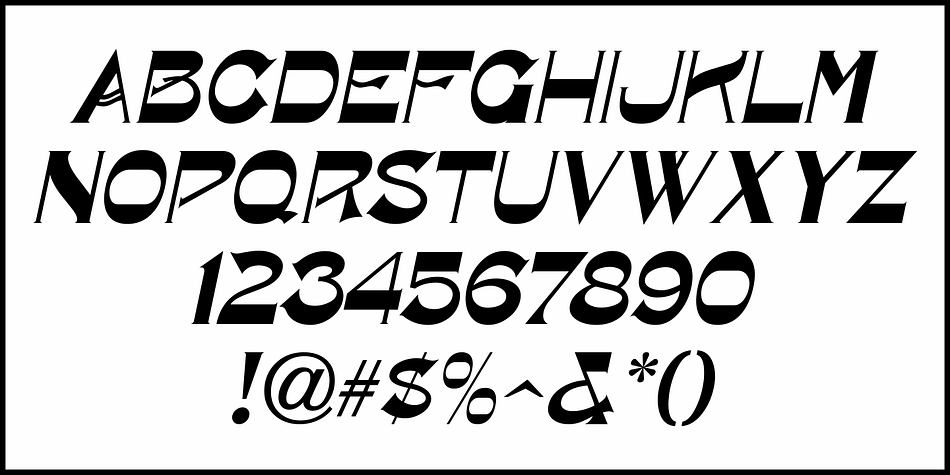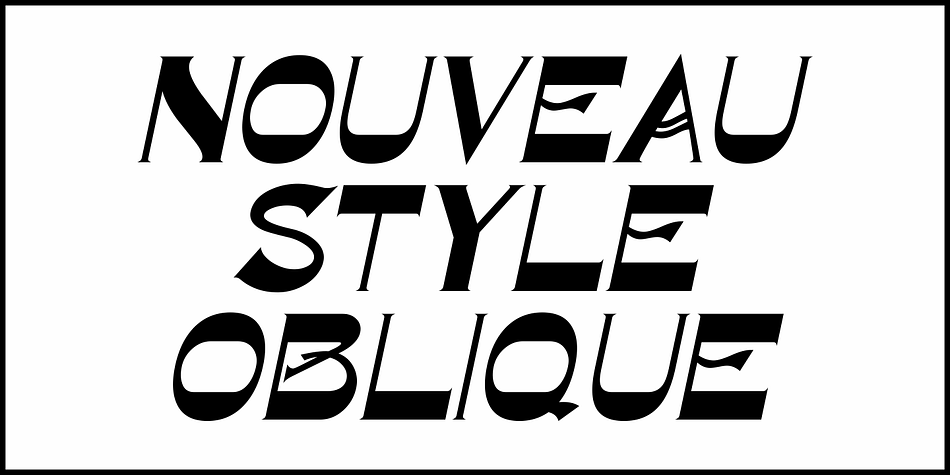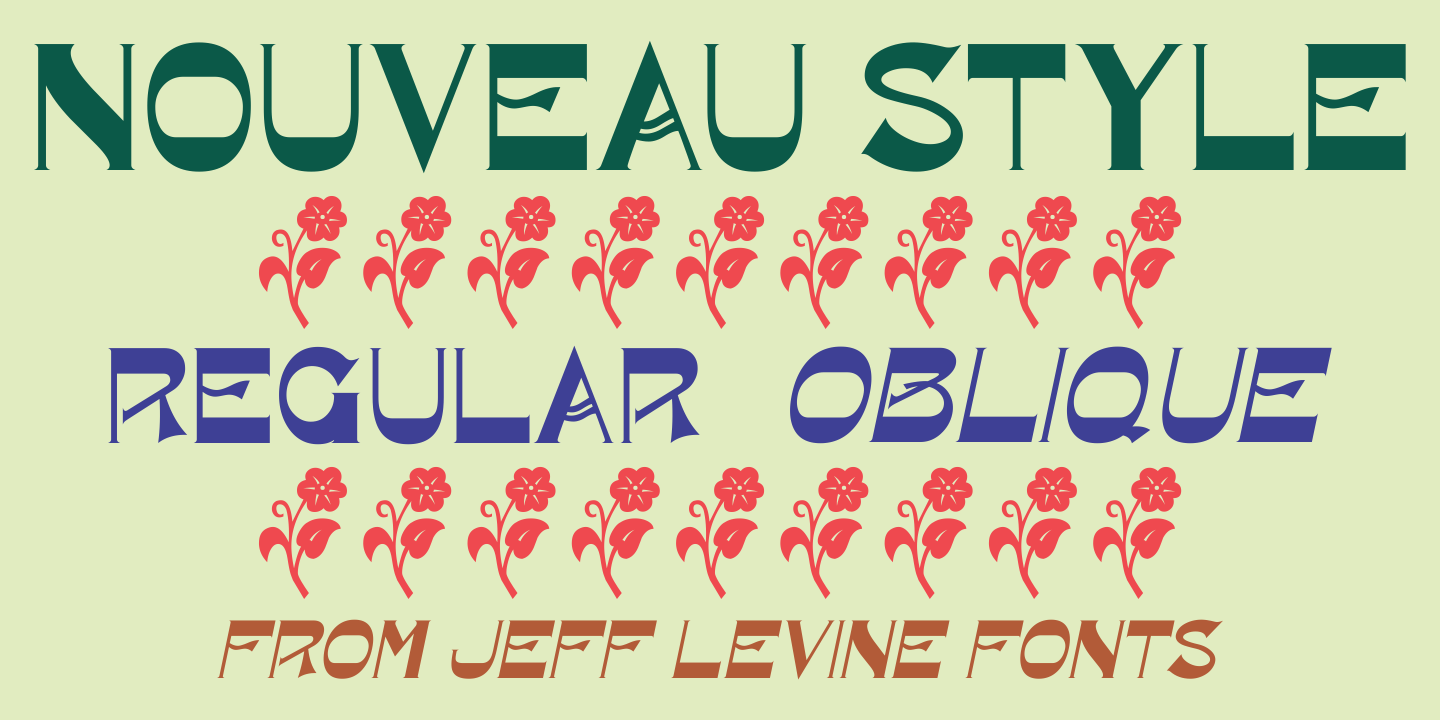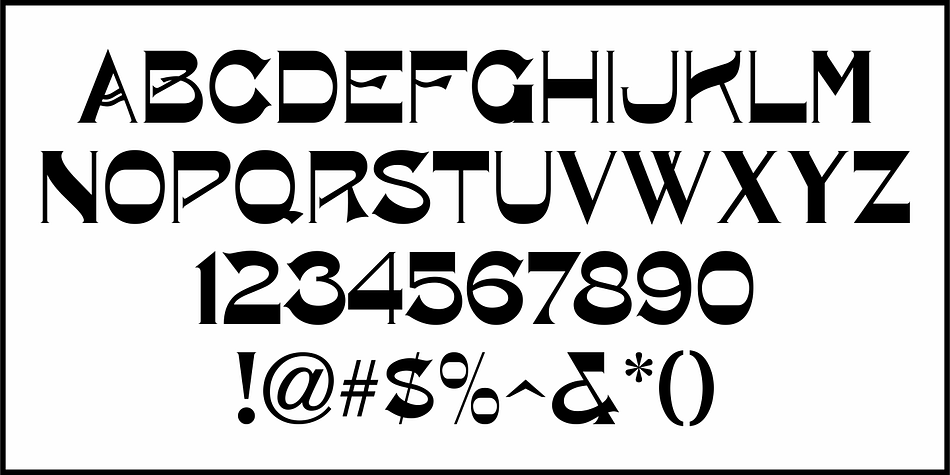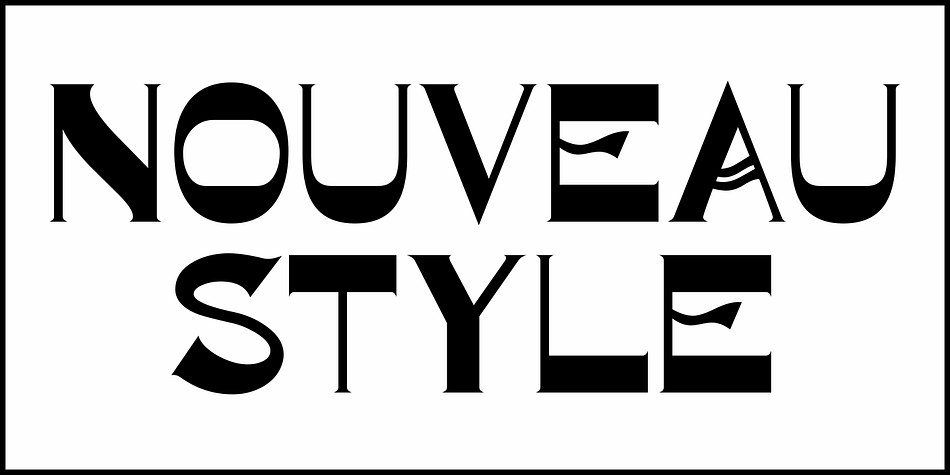
NOUVEAU STYLE JNL
Designed by Jeff Levine, Nouveau Style JNL is an art nouveau font family. This typeface has two styles and was published by Jeff Levine Fonts.
Scribner’s Magazine was an illustrated periodical published from 1887 to 1939.  The 1895 holiday issue “Scribner’s for Xmas” had the cover text hand lettered in an Art Nouveau style with spurred serifs.
This is now available digitally as Nouveau Style JNL, in both regular and oblique versions.